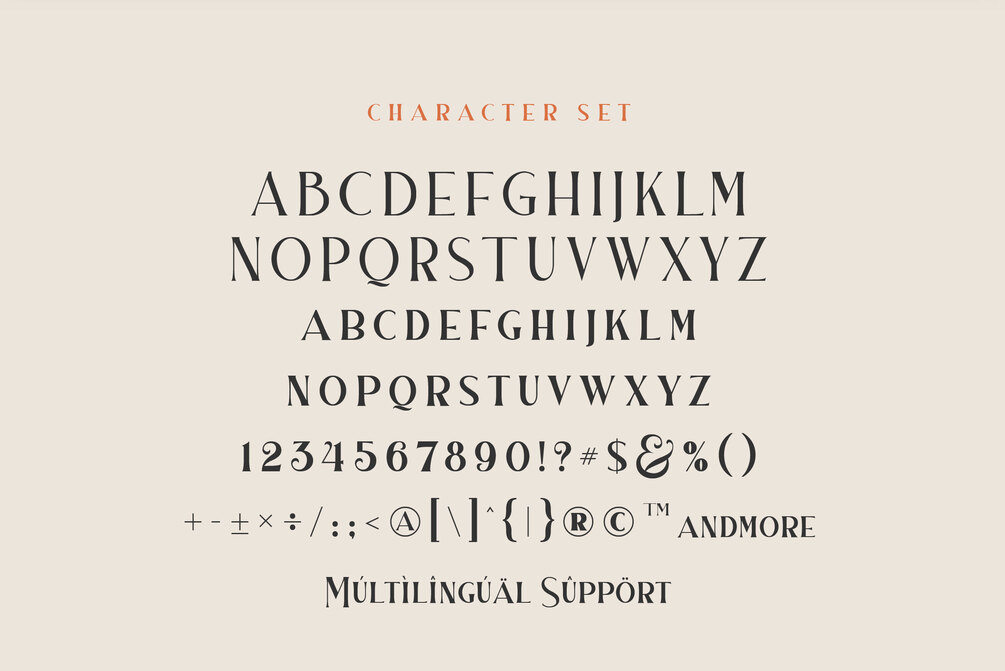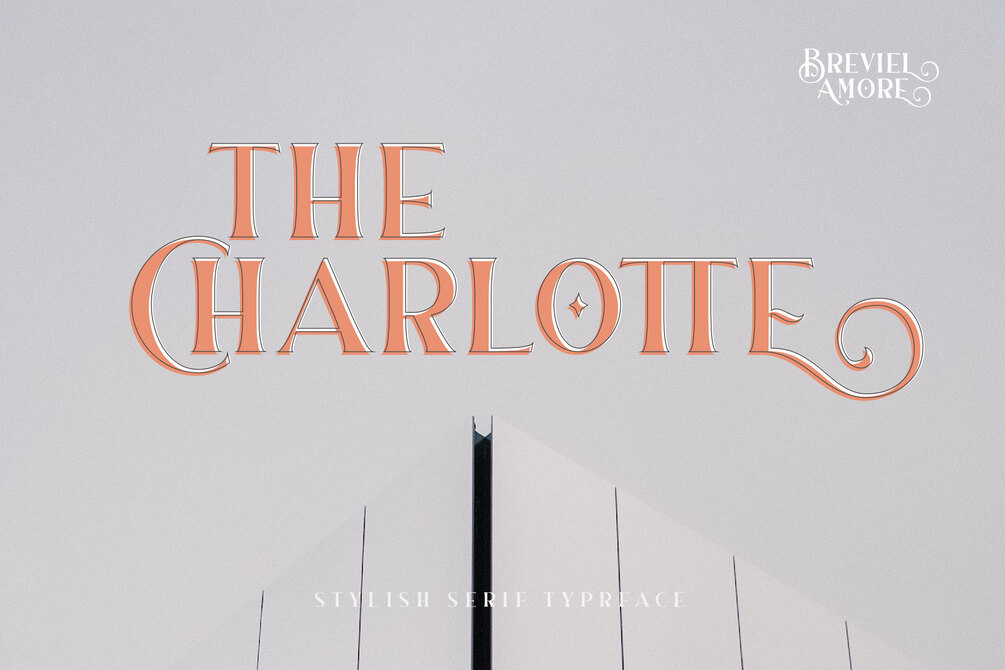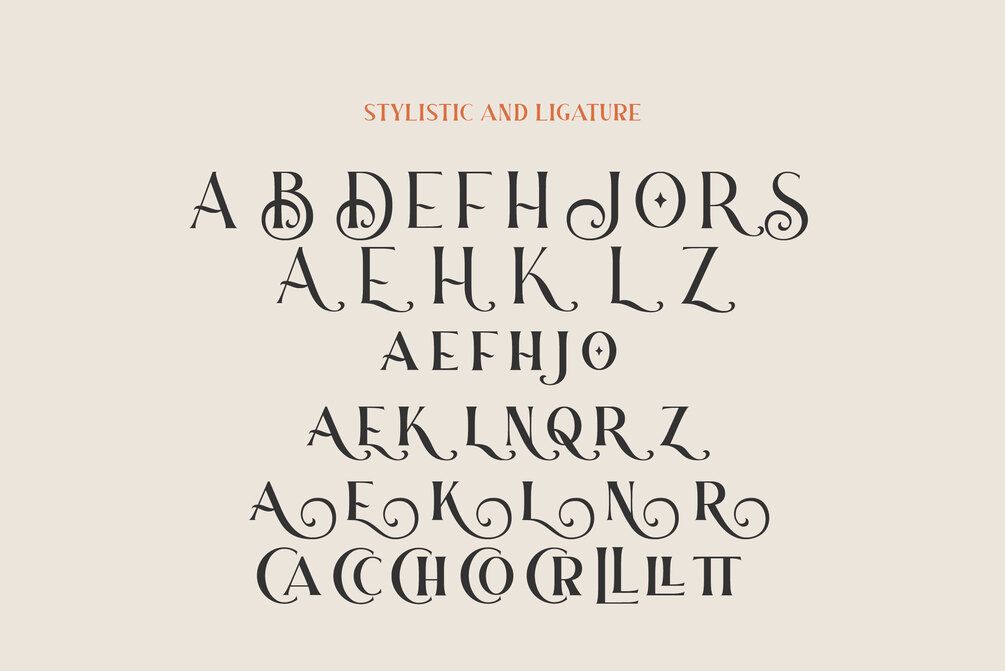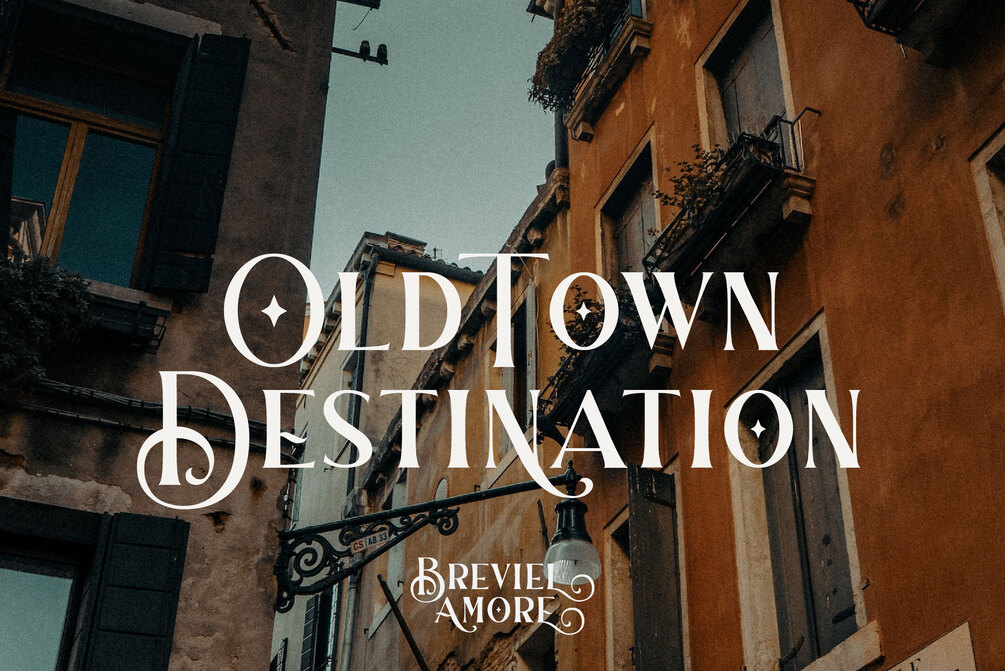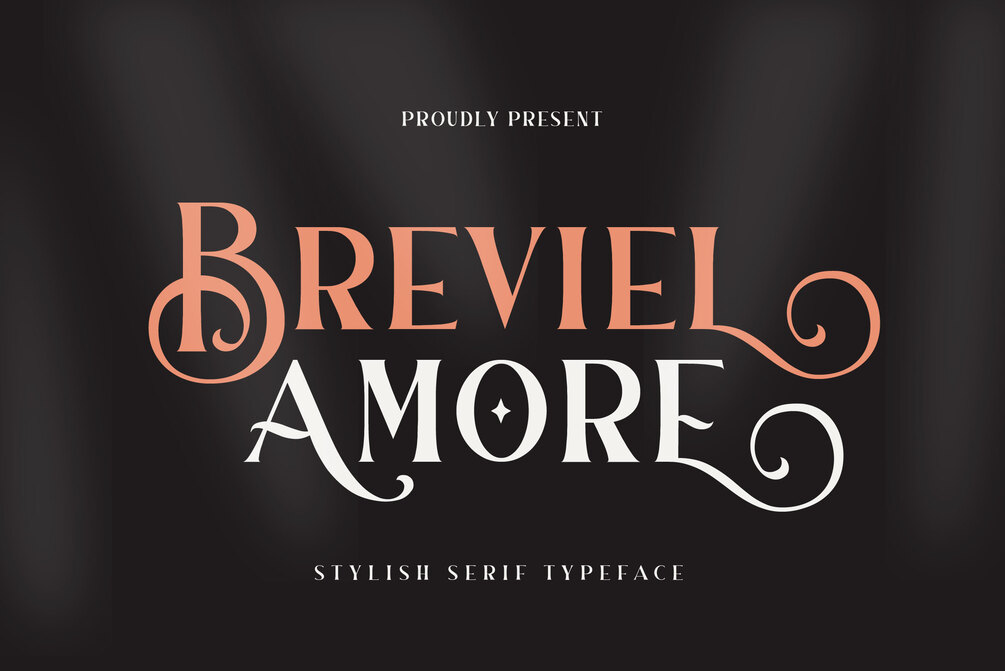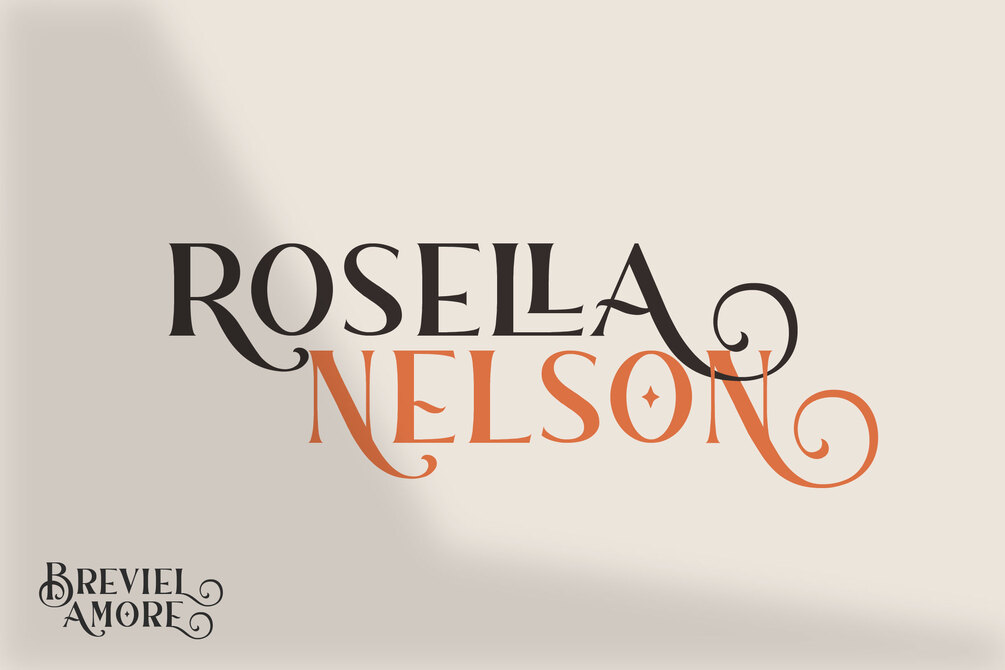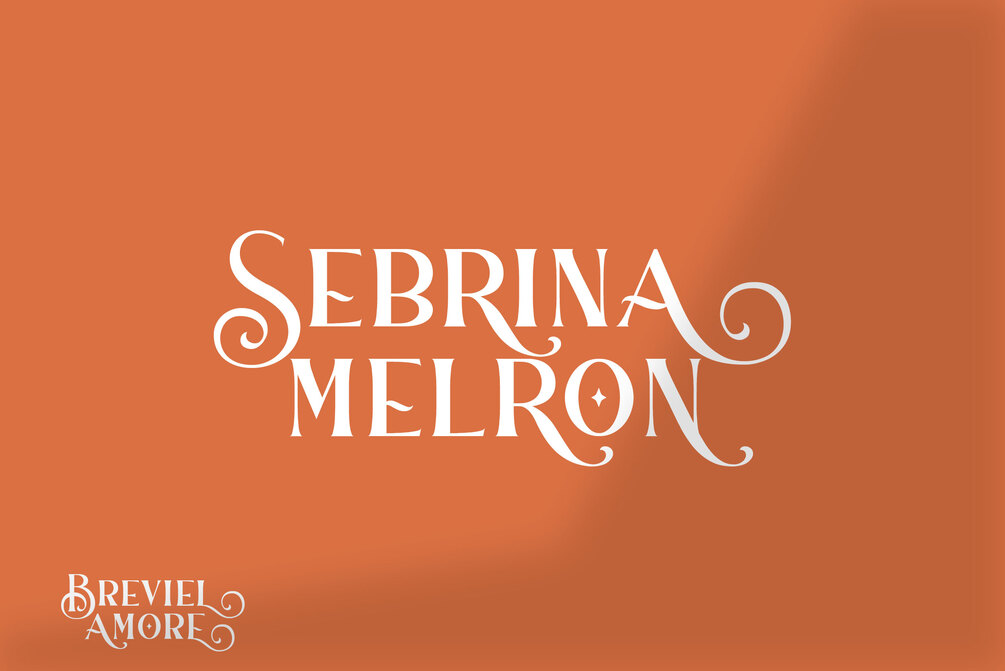
Breviel Amore
Breviel Amore is a sophisticated serif typeface that blends classic elegance with modern flair. Featuring graceful curves, ornamental swashes, and refined letterforms, this font exudes a luxurious and romantic character. Its bold yet stylish design makes it perfect for branding, editorial headlines, wedding invitations, packaging, and high-end design projects. Breviel Amore captures timeless beauty while adding a contemporary artistic touch, ensuring your designs stand out with charm and distinction.
- Alphabet Characters
- Numeral, Punctuation & Symbol
- Ligature & Stylistic Alternate Letters
- PUA Encoded & Multilingual